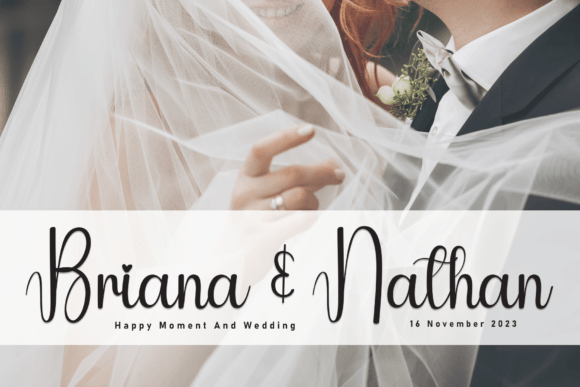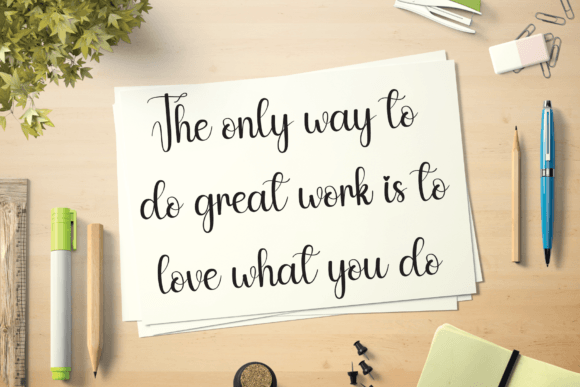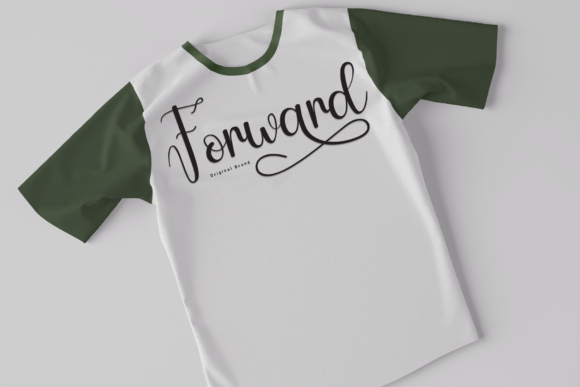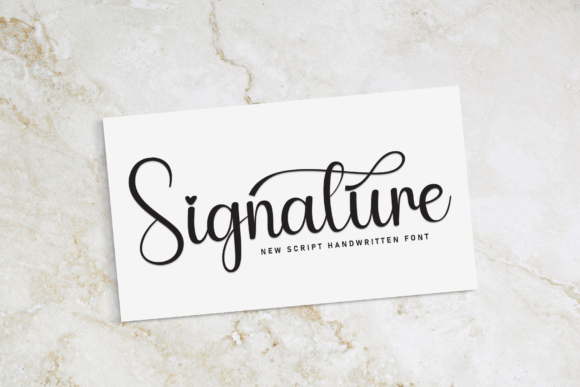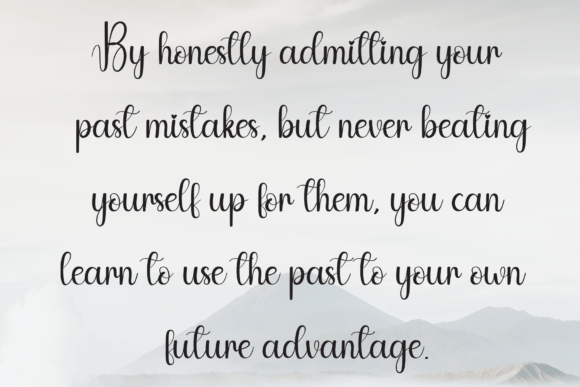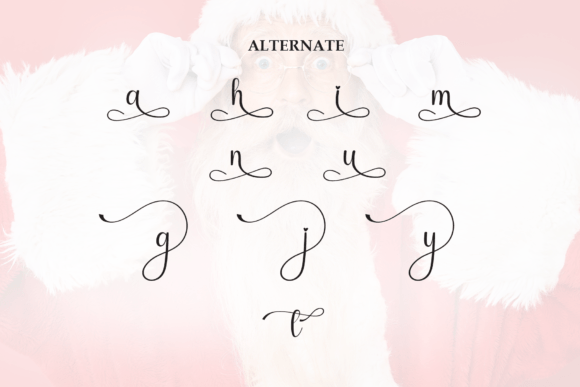
Deck the Halls with Style: Introducing the Amazing Santa Font
Who hasn’t sat at their desk, surrounded by scraps of paper, glue, and glitter, desperately searching for the perfect font to bring their design to life? It’s that moment of creative frustration that sparked our love affair with the Amazing Santa Font. This sweet and friendly handwritten display font is the perfect solution for designers looking to add a touch of whimsy and fun to their projects.
Designed to be cute and charming, the Amazing Santa Font is ideal for writing wedding invitations, cards, or any other design that needs a dash of personality. Its versatility and playfulness make it a valuable asset for designers looking to add some visual interest to their work. With the Amazing Santa Font, the possibilities are endless, and we can’t wait to see how you bring it to life in your next design project!
Amazing Santa Font Key Features
- Font Family: Amazing Santa Font offers a unique and festive font family with various styles, including Regular, Italic, Bold, and Bold Italic.
- Unique Characteristics: Amazing Santa Font features a distinctive, hand-drawn design with intricate details and ornaments, adding a touch of whimsy and festivity to any project.
Amazing Santa Font Review
I’ve had the chance to work with the Amazing Santa Font, and I must say it’s a unique and attention-grabbing choice for holiday-themed designs. ✨ The font’s bold, playful style is perfect for capturing the festive spirit. I particularly enjoyed using it for Christmas card designs and social media graphics.
Here are some of the font’s strengths:
- ✨ Unique and fun design that’s sure to stand out
- ✨ Perfect for holiday-themed designs, especially Christmas and New Year’s
- ✨ Works well for both digital and print projects
- ⚠️ Limited character set, which may make it less versatile for longer texts
- ⚠️ Not ideal for formal or professional designs, as it may come across as too playful
Overall, I’d say the Amazing Santa Font is a great choice for designers looking to add some holiday cheer to their projects. While it may not be suitable for every design, it’s definitely a fun and unique option to have in your toolkit.
Use Amazing Santa Font for festive and fun designs, such as Christmas cards, invitations, and party decorations.
Combine Amazing Santa Font with other festive fonts and graphics to create a unique and eye-catching design.
Amazing Santa Font is ideal for:
Christmas cards and invitations
Party decorations and signage
Festive social media posts and graphics